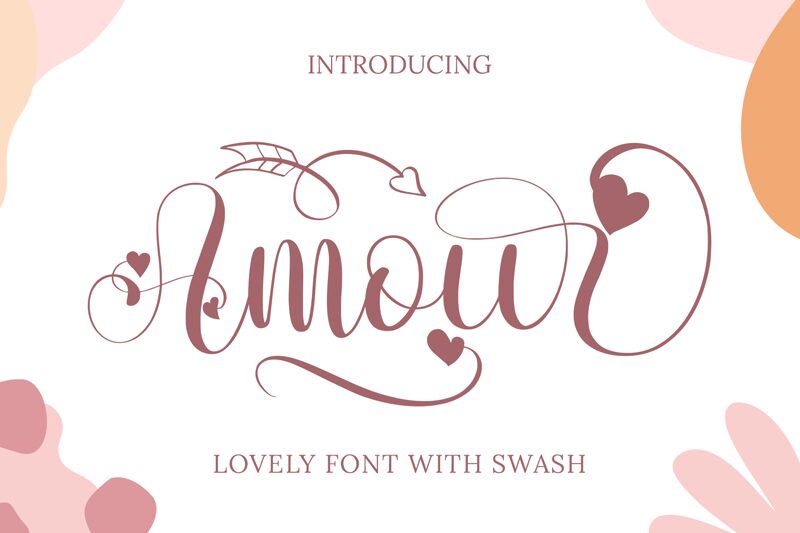
Amour, a mesmerizing calligraphy font crafted by Bearytype, exudes elegance and sophistication. With its graceful strokes and fluid curves, this typeface adds a touch of romance to any project it graces. Suitable for wedding invitations, love letters, and heartfelt quotes, Amour captures the essence of true love. Its versatility extends beyond romance, however, as it also shines in luxury branding projects, high-end fashion editorials, and refined packaging designs. Whether evoking timeless romance or elevating the aesthetic appeal of your creations, Amour is a captivating choice that will leave a lasting impression.